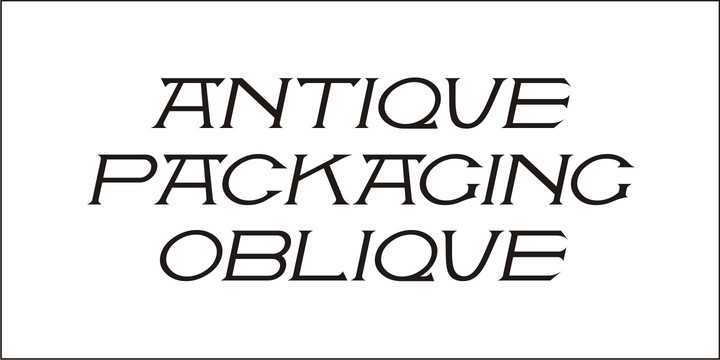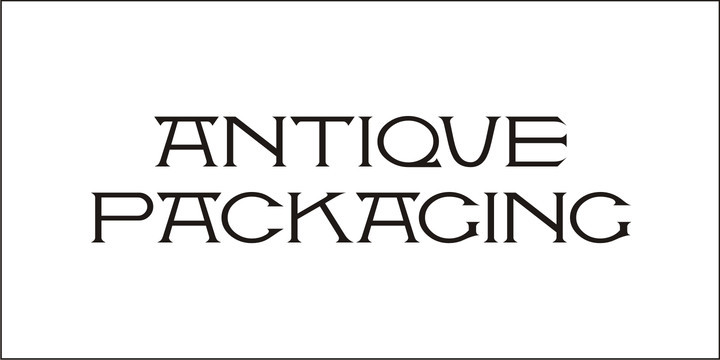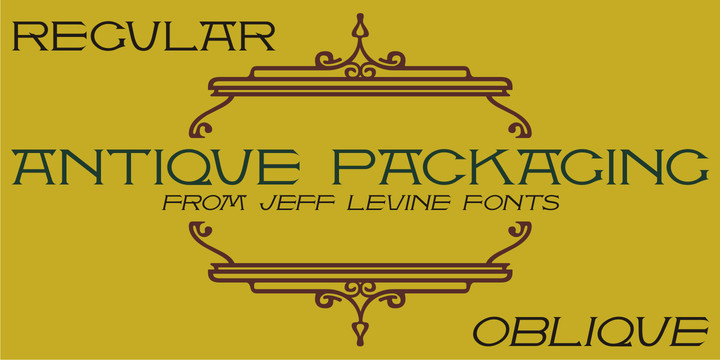
Antique Packaging JNL Font Family
The box cover of “Drawing Stencils No. 3 for Use on Slate or Paper” [a children’s drawing set produced by Montgomery, Ward & Company of Chicago circa the 1890s] had its title in an elegant spurred Roman type face.
Working from the few letters available, a complete character set was created that resulted in Antique Packaging JNL, which is available in both regular and oblique versions.